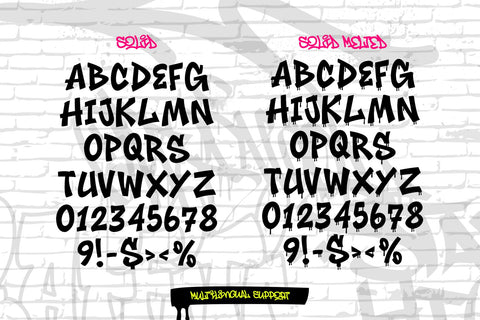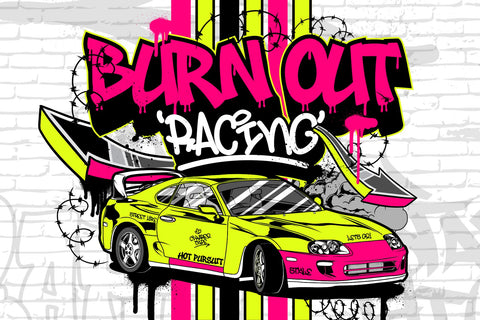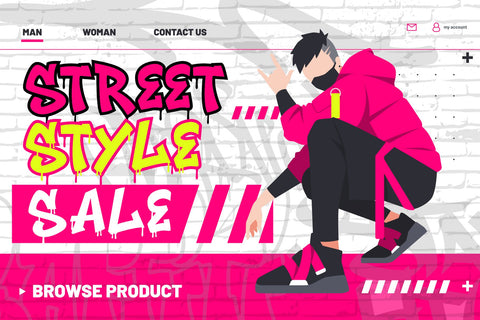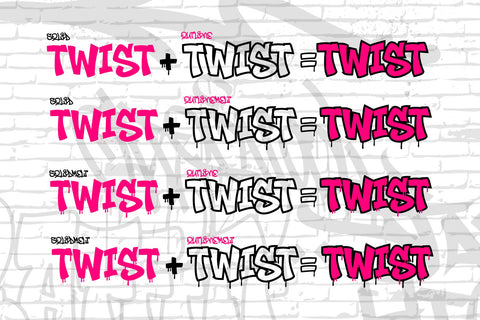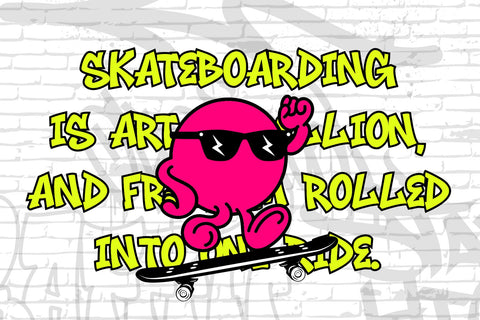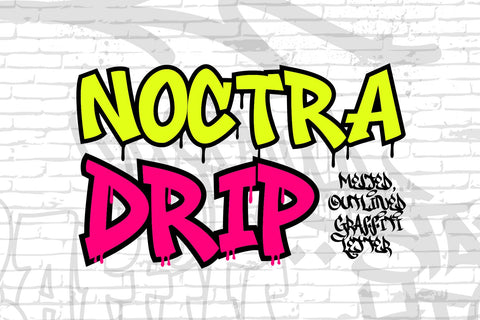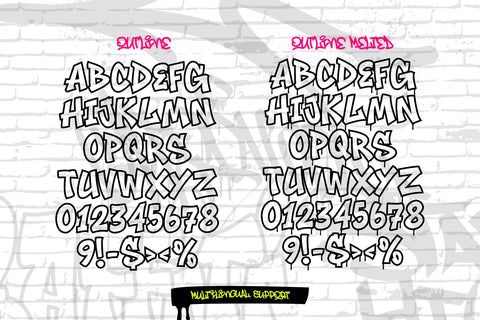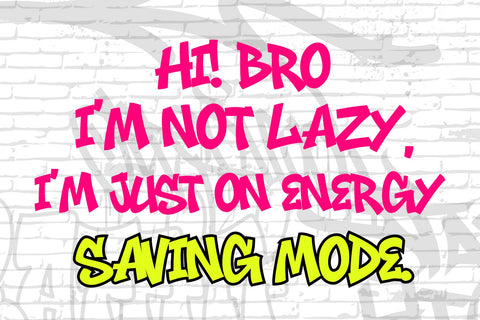
Noctra Drip | 4 Style Graffiti Font Solid, Melted & Outline
Noctra Drip is a bold, rebellious graffiti display font that brings a melting street-art aesthetic to your designs. Featuring four striking styles — Solid, Solid Melt, Outline, and Outline Melt — it offers great flexibility for layering and creating vibrant typographic compositions. Each letter is infused with urban flair and dripping accents, making this font ideal for streetwear branding, music cover art, youth culture posters, and digital projects that need an edgy, expressive look.